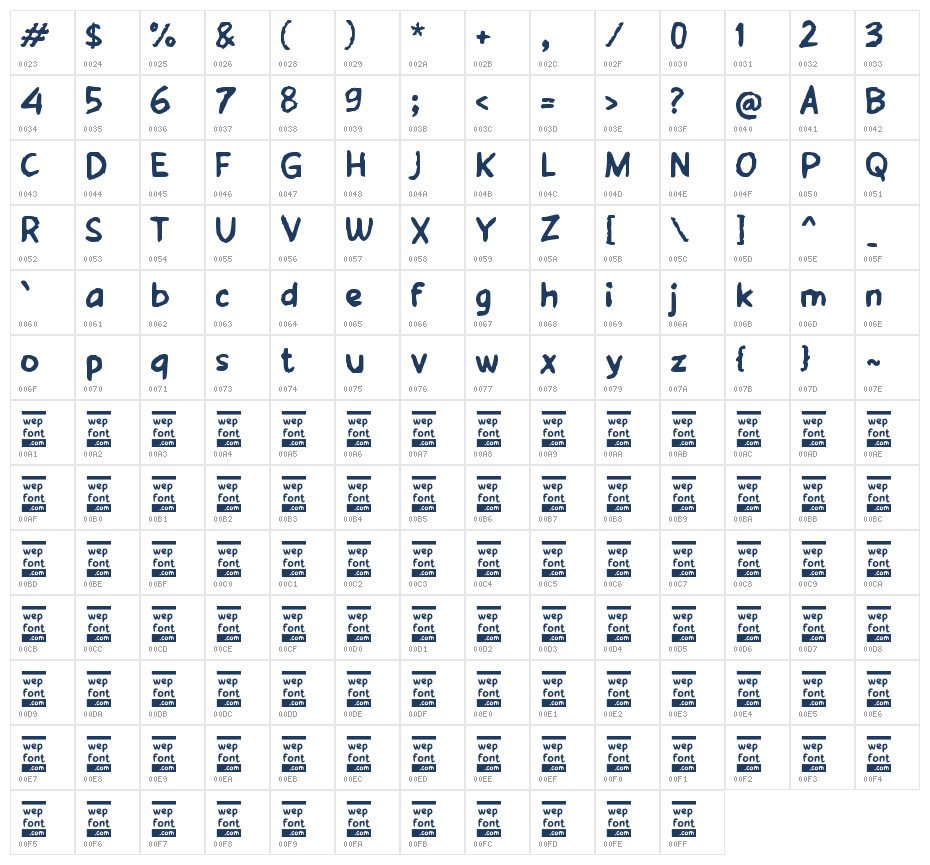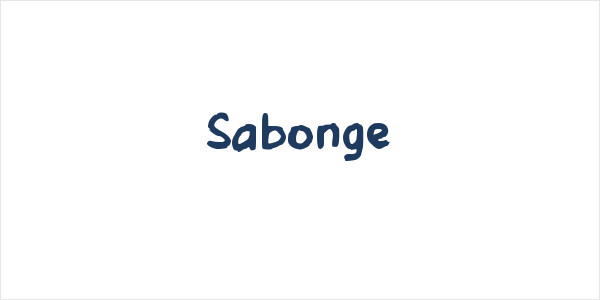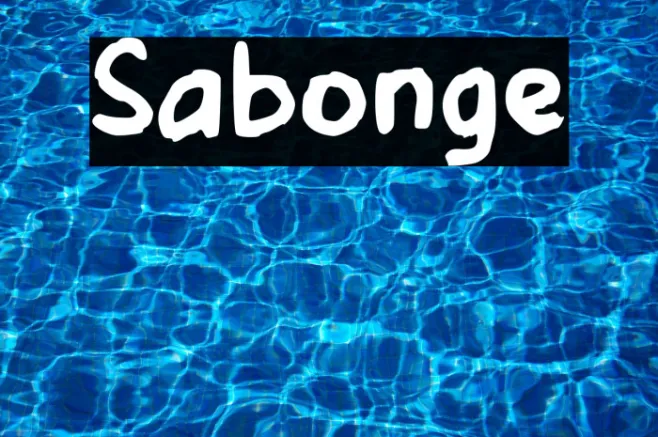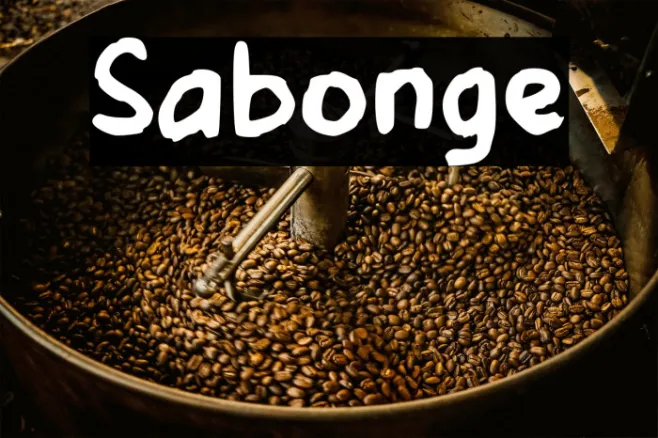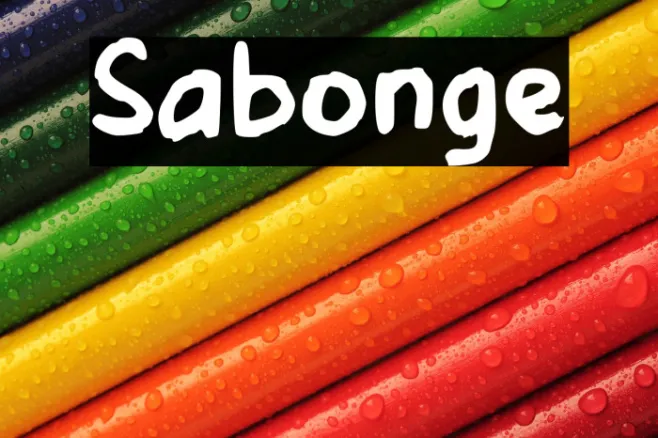
Sabonge Font
Sabonge Description
A playful, handwritten style font with a casual and informal appearance, featuring irregular strokes and a slightly rough texture.